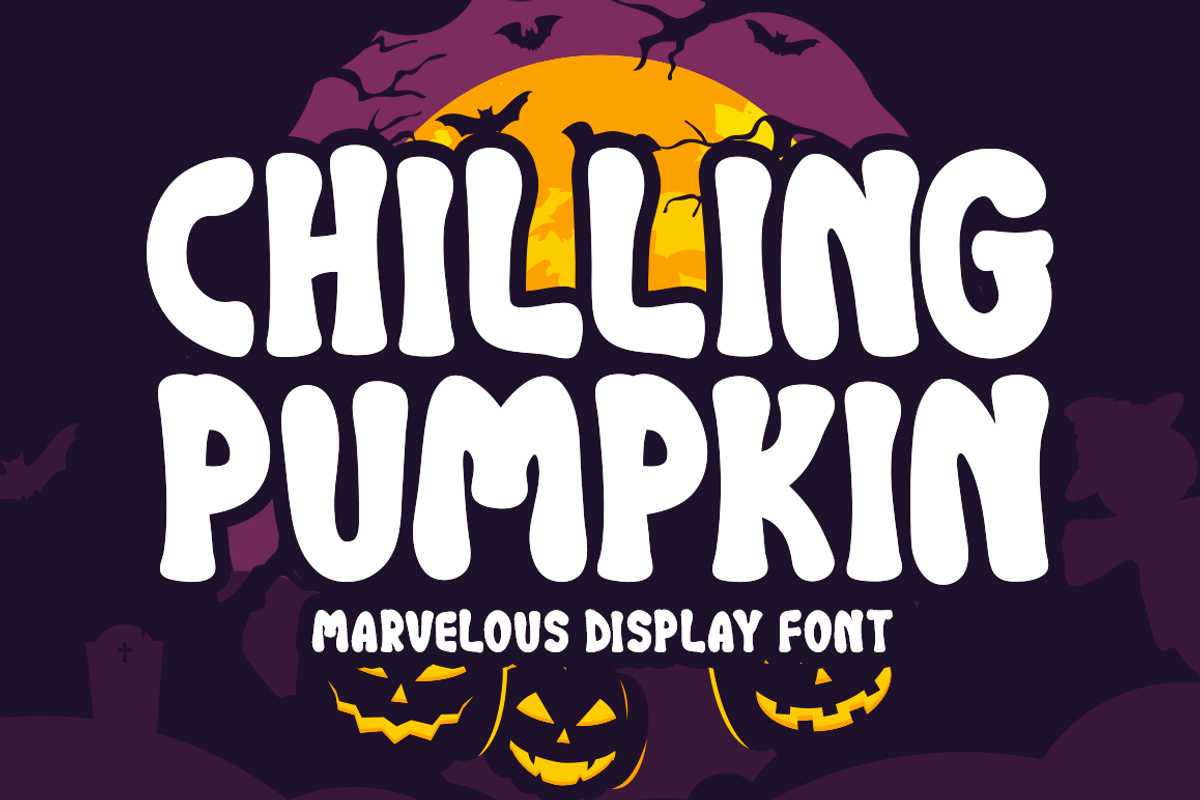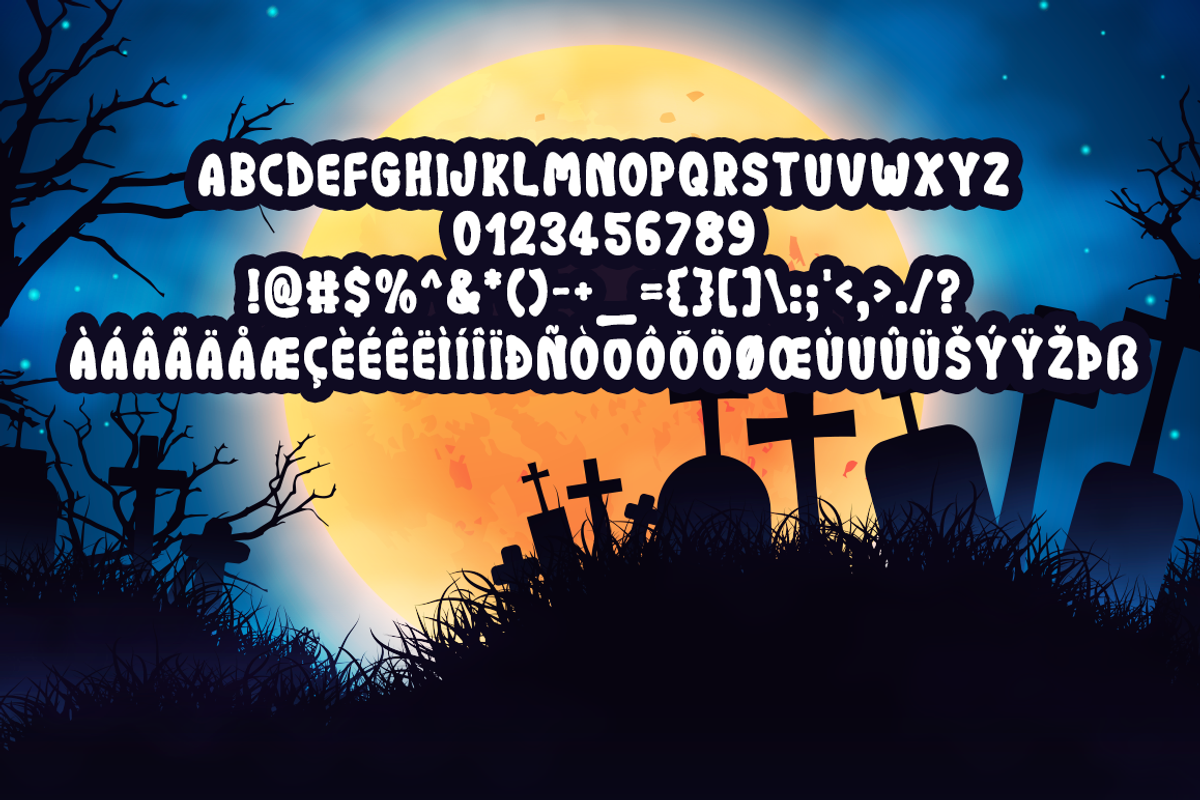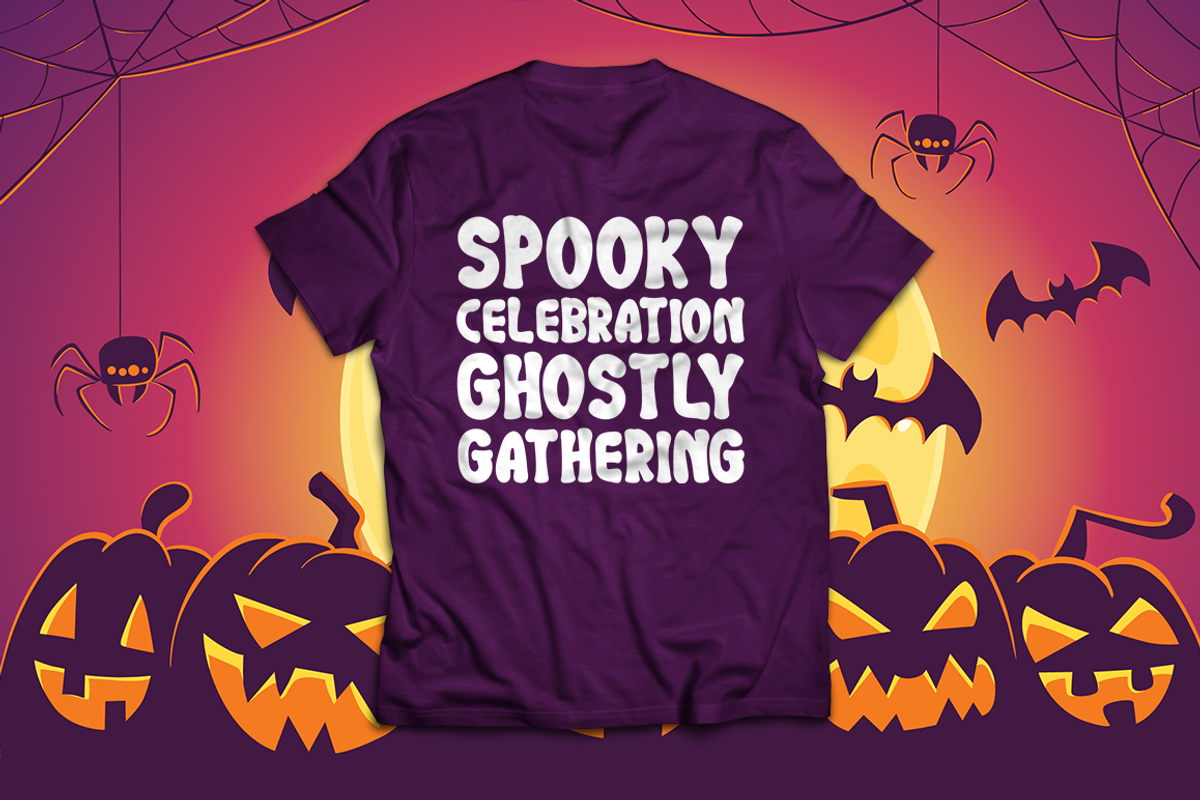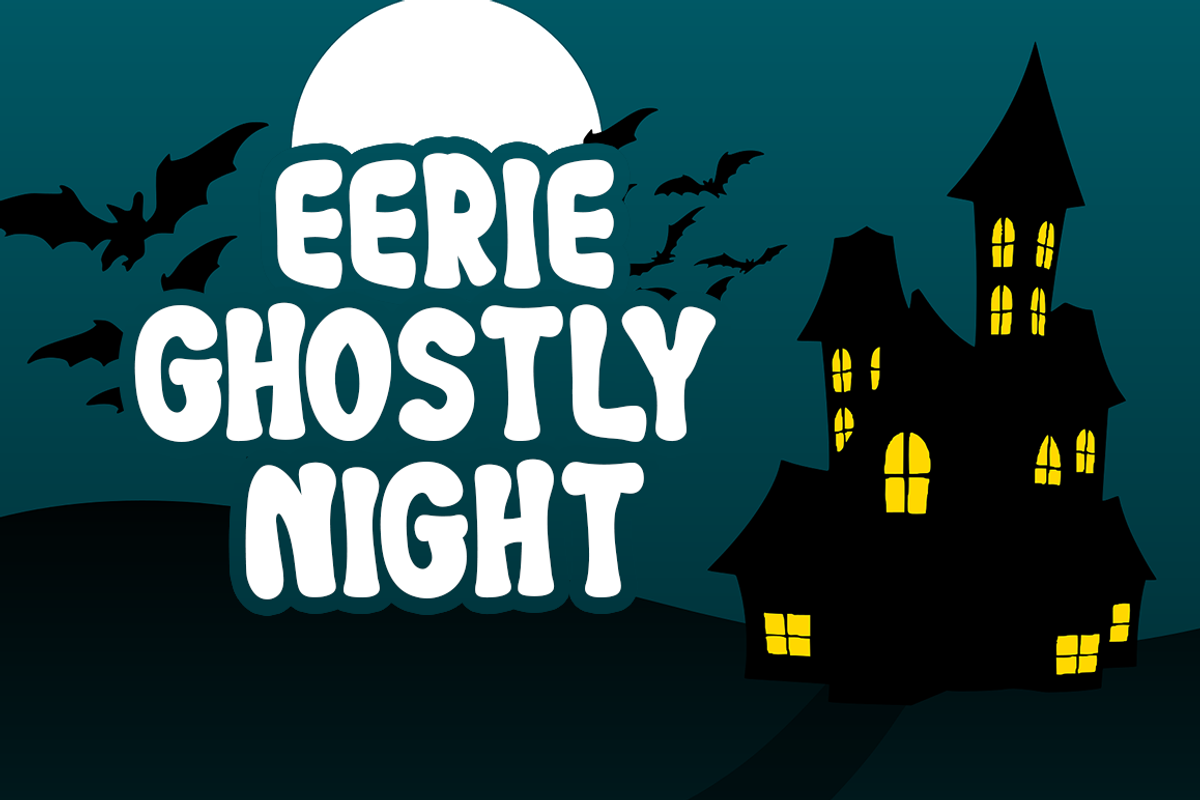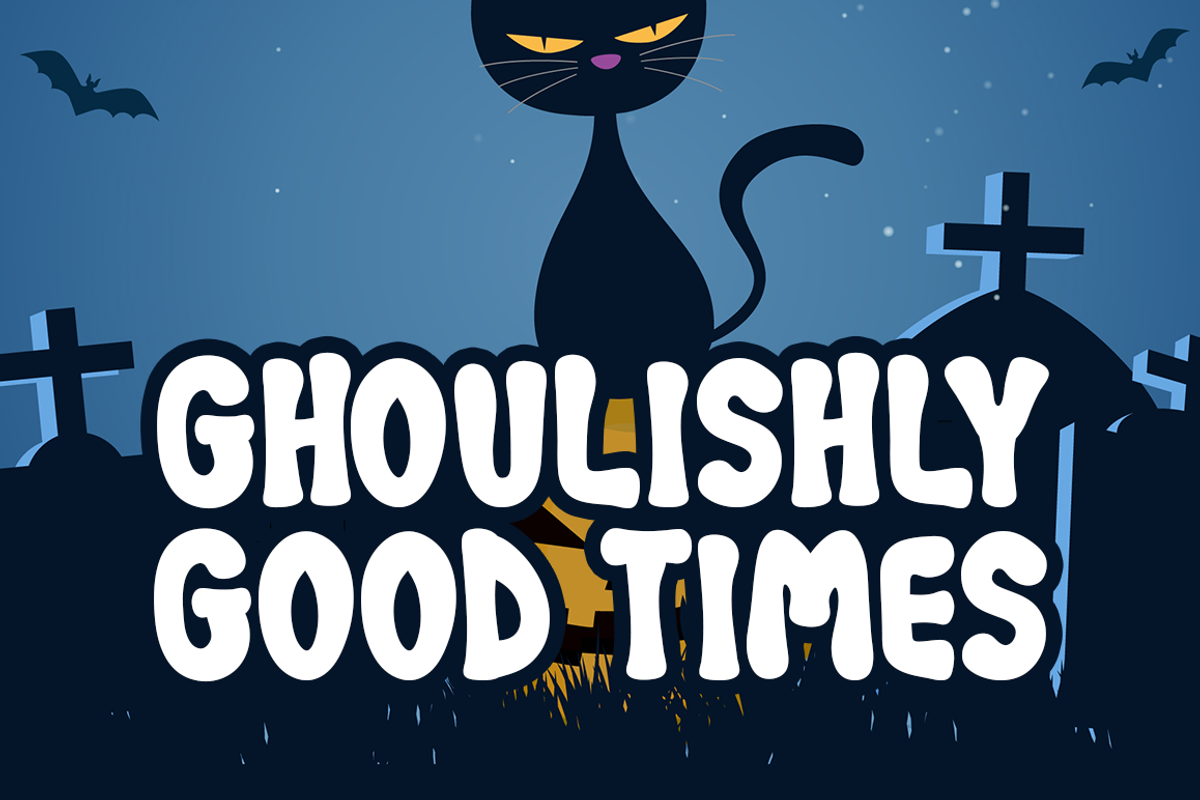
Chilling Pumpkin Typeface
Introducing Chilling Pumpkin!
Meet Chilling Pumpkin, a brand-new display font that brings a unique touch to any design. Whether you’re working on stationery, logos, t-shirts, or print materials, Chilling Pumpkin adds a distinctive flair. It's equally effective for website headers, photo frames, flyers, music covers, posters, image sliders, and other design needs.
Includes a range of multilingual support